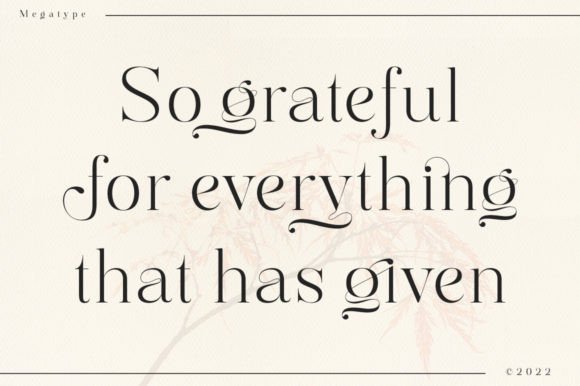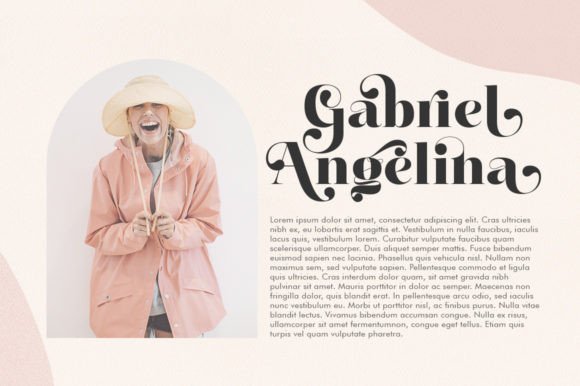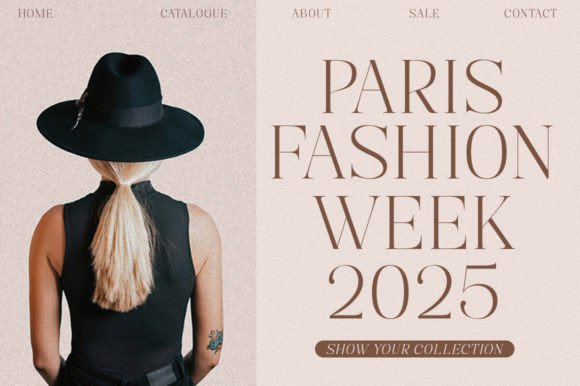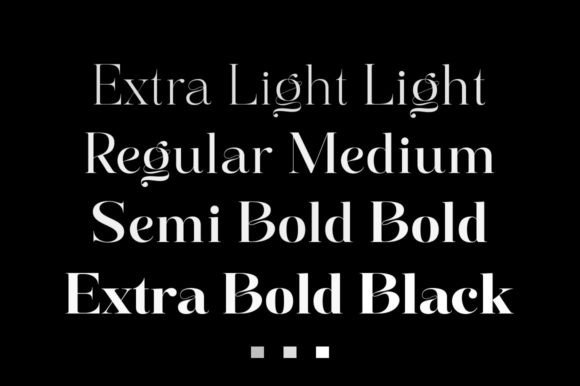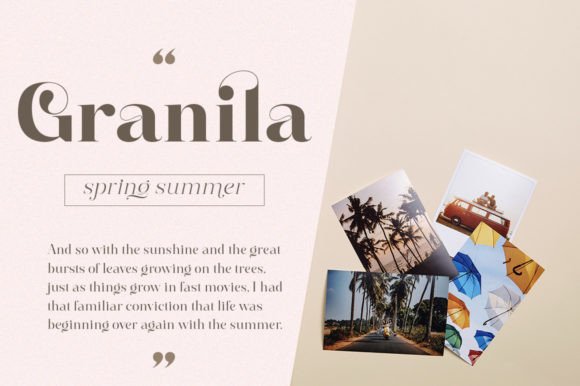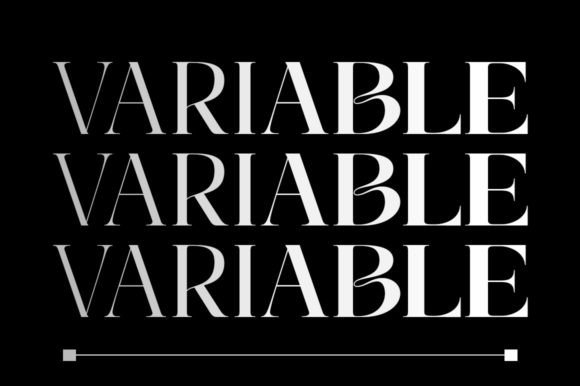
Introduction to Mingolia Display Font
Mingolia Display – A modern serif font family (Variable Font) with a unique and classy style.
It looks amazing at display size and is easy to read in text size Mingolia Display also offers many alternative fonts and beautiful ligatures, which allow you to replace standard fonts with alternative fonts/ligatures to make your designs more unique and attractive.